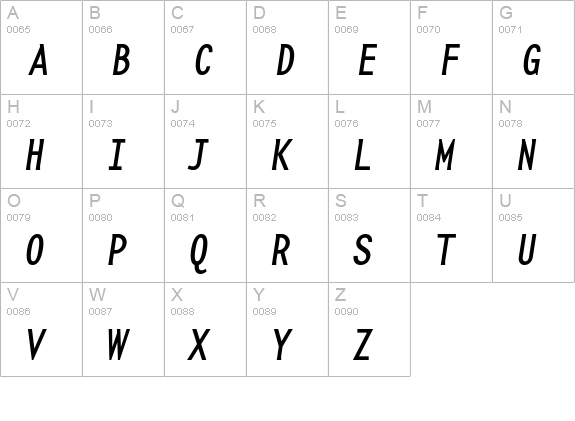
BaseMonoReg-Narrow Italic Font Details
BaseMonoReg-Narrow Italic is a distinctive, condensed-width, italic variant in the BaseMonoReg typeface family \xE2\x80\x94 well suited to design and typography projects.
BaseMonoReg-Narrow Italic is a sleek and modern font that adds a touch of sophistication to any design project. Its narrow proportions and slanted italics create a sense of elegance and style, making it perfect for use in headings, titles, and branding materials. The clean lines and subtle curves of BaseMonoReg-Narrow Italic give it a professional and polished appearance, making it a versatile choice for a wide range of applications. Best of all, BaseMonoReg-Narrow Italic is available for free download at FontsMarket.com. This means you can enhance your projects with this sophisticated font without any cost. Whether you're a designer looking to add a unique flair to your work or a business owner wanting to elevate your branding, BaseMonoReg-Narrow Italic is the perfect choice. Download it today and see the difference it can make in your designs.